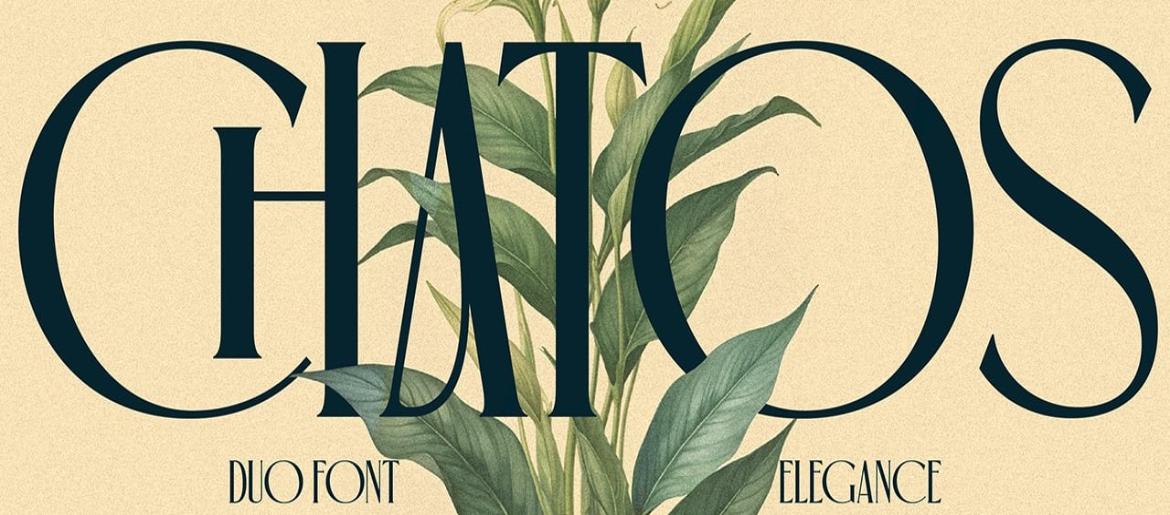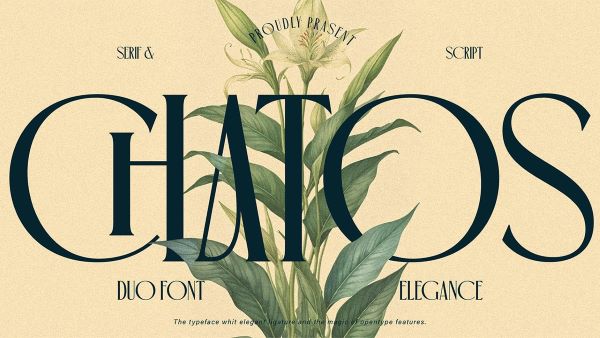
Chatos Original Font
Chatos Original Font is a refined duo typeface combining an elegant serif with a flowing handwritten script, delivering a timeless romantic and artistic style. Featuring graceful alternates, ligatures, and OpenType features, it creates smooth premium compositions. Ideal for branding, editorials, logos, and decorative accents, it blends classic elegance with modern floral charm and fits beautifully within creative free fonts collections.